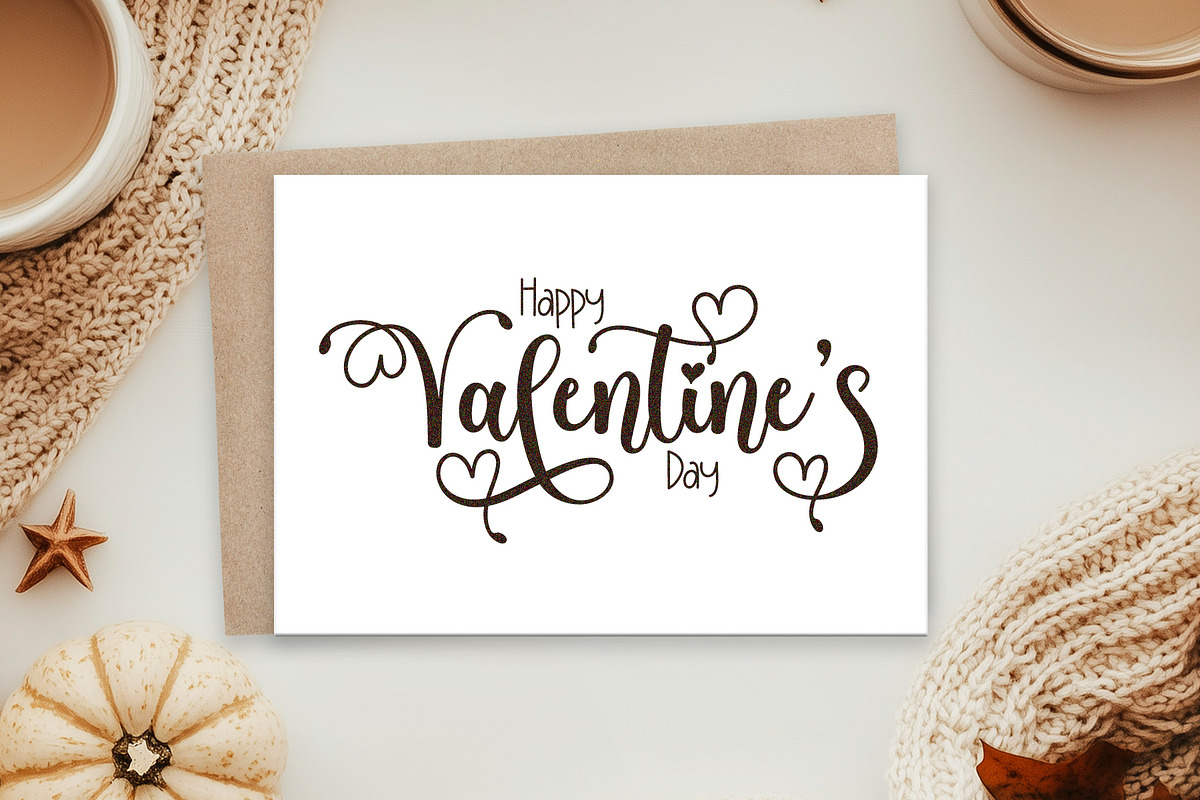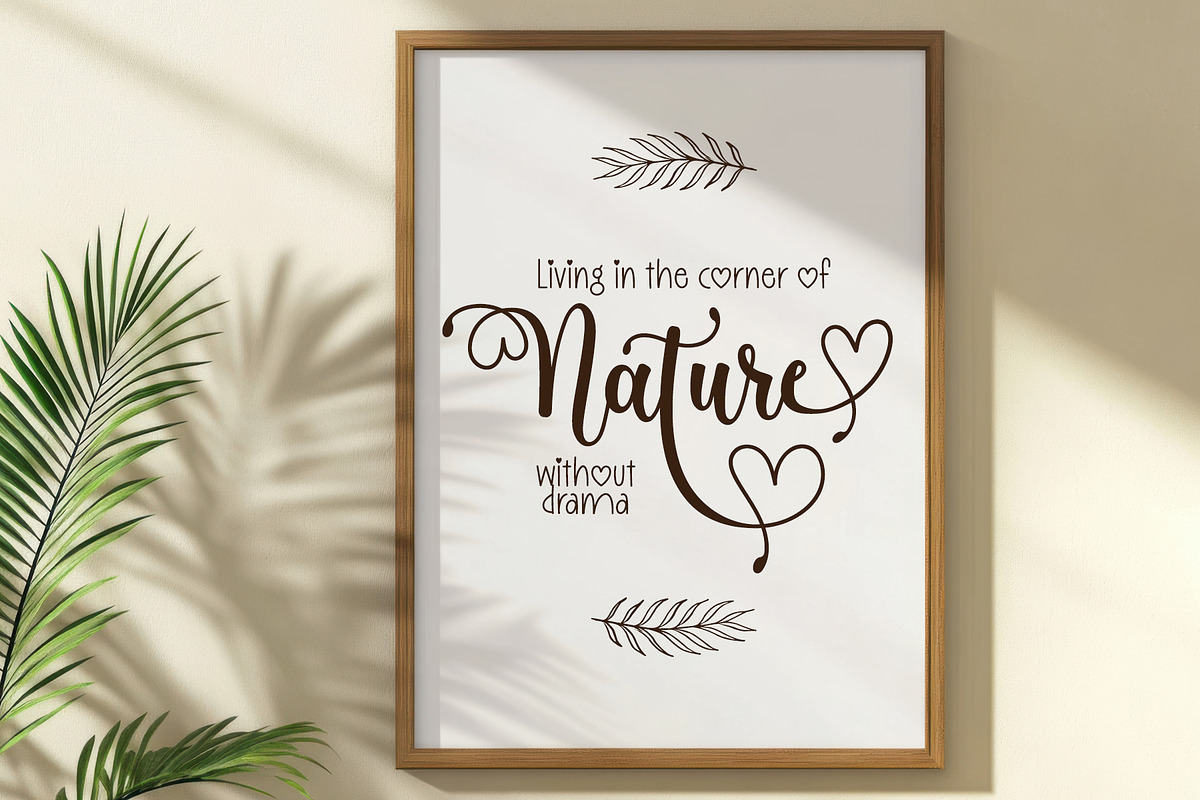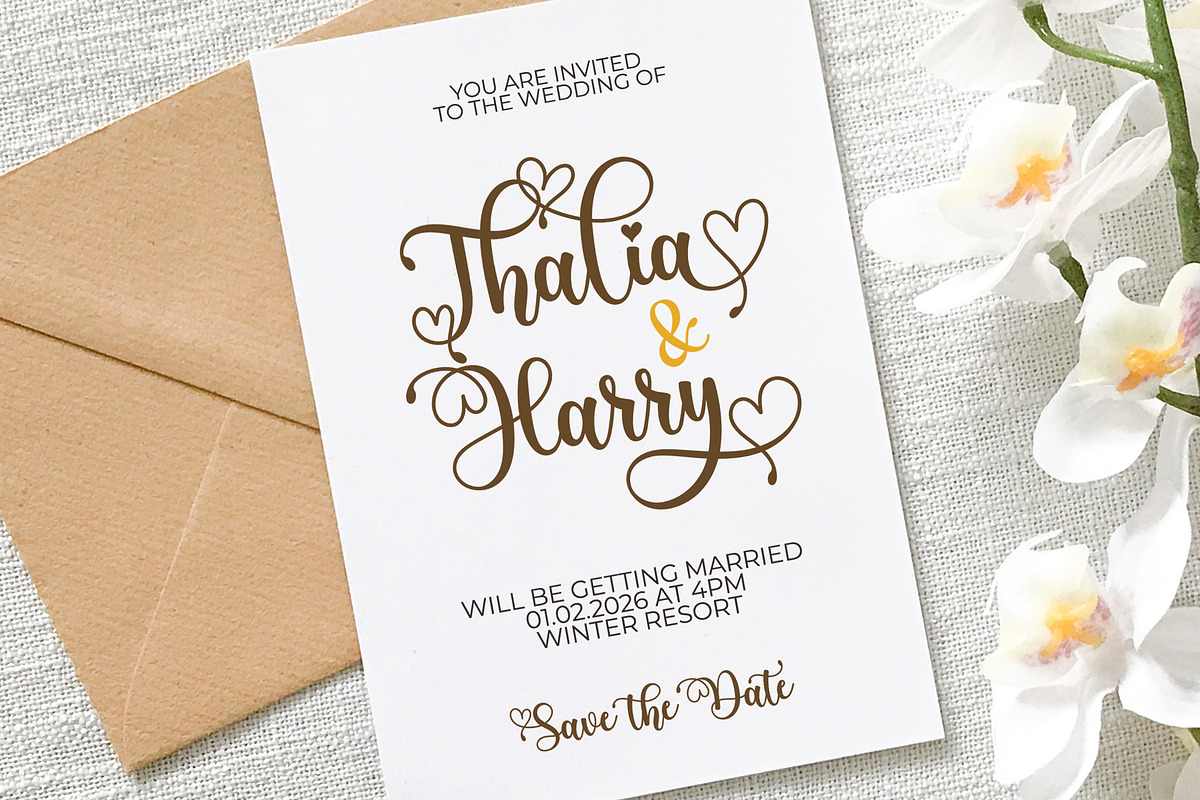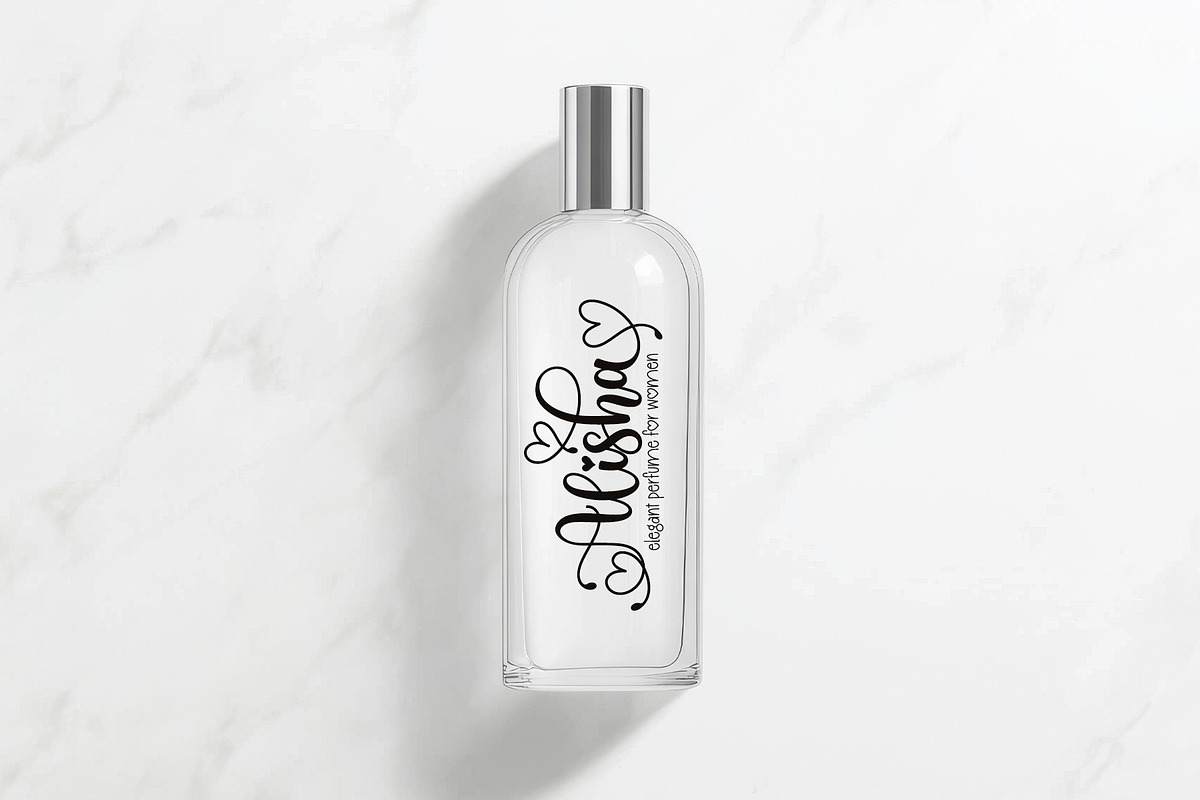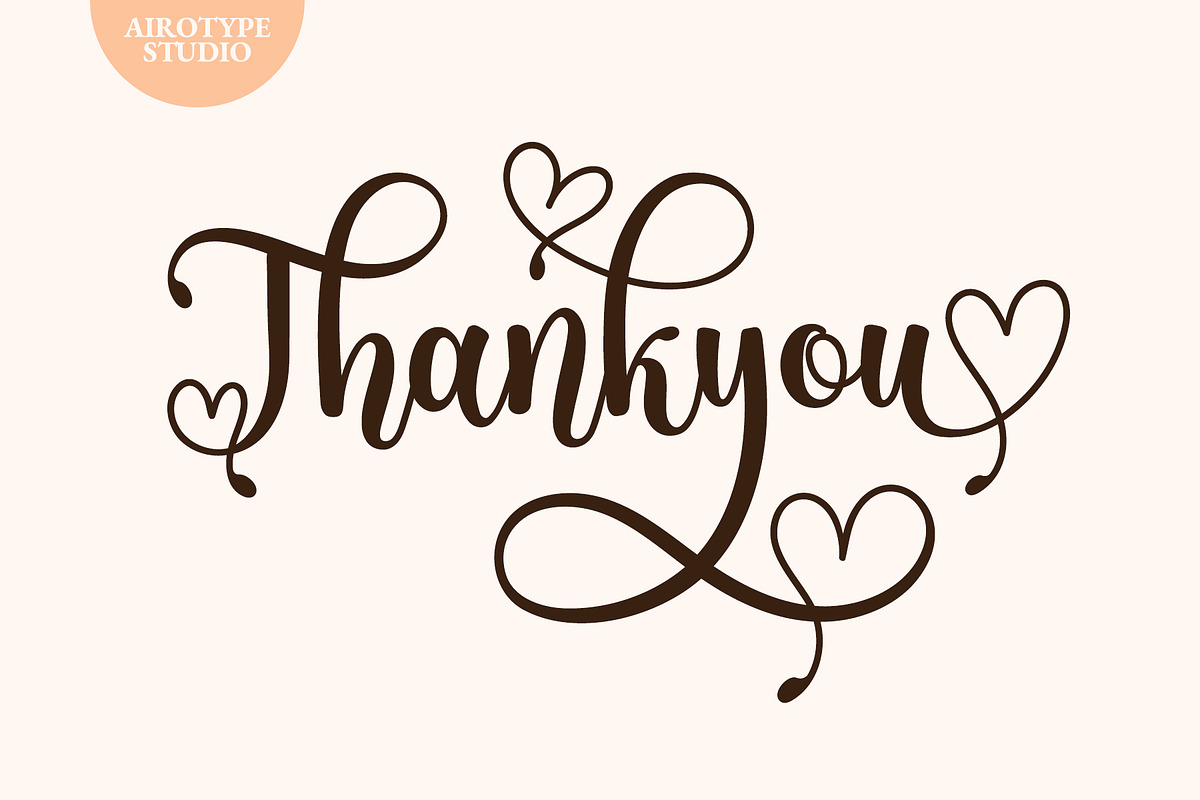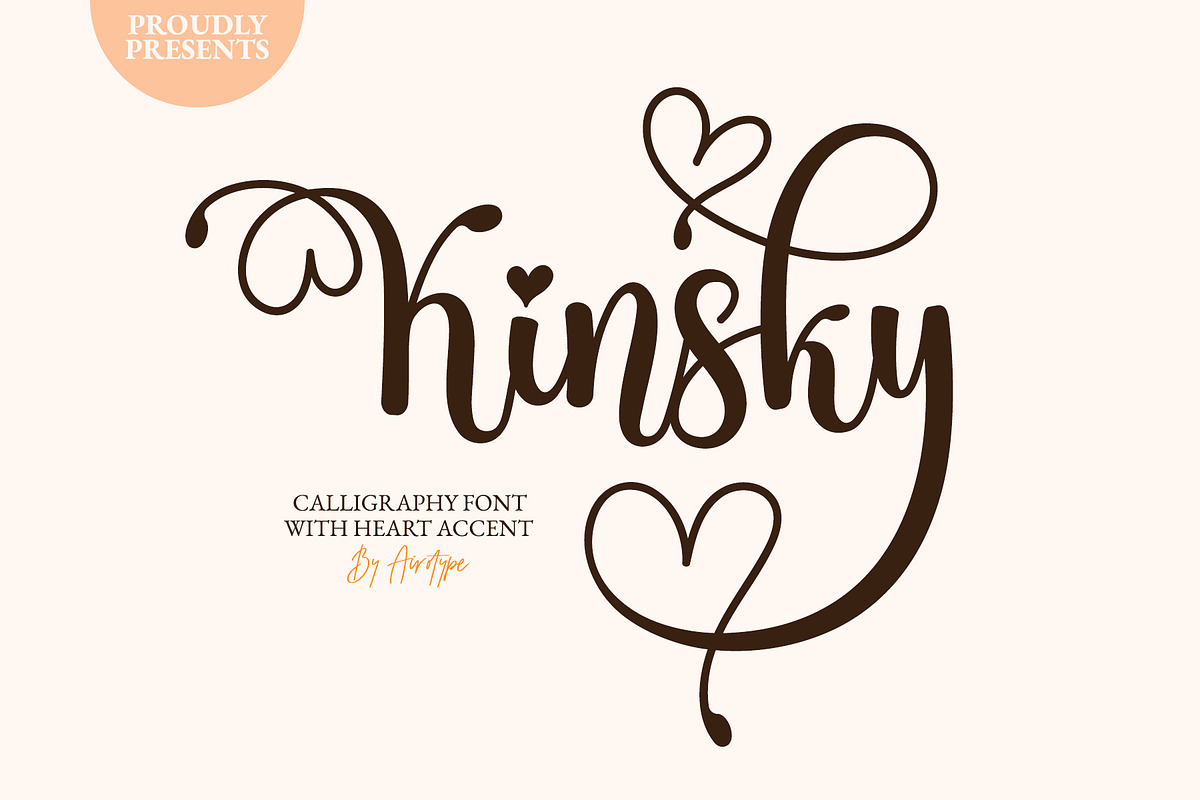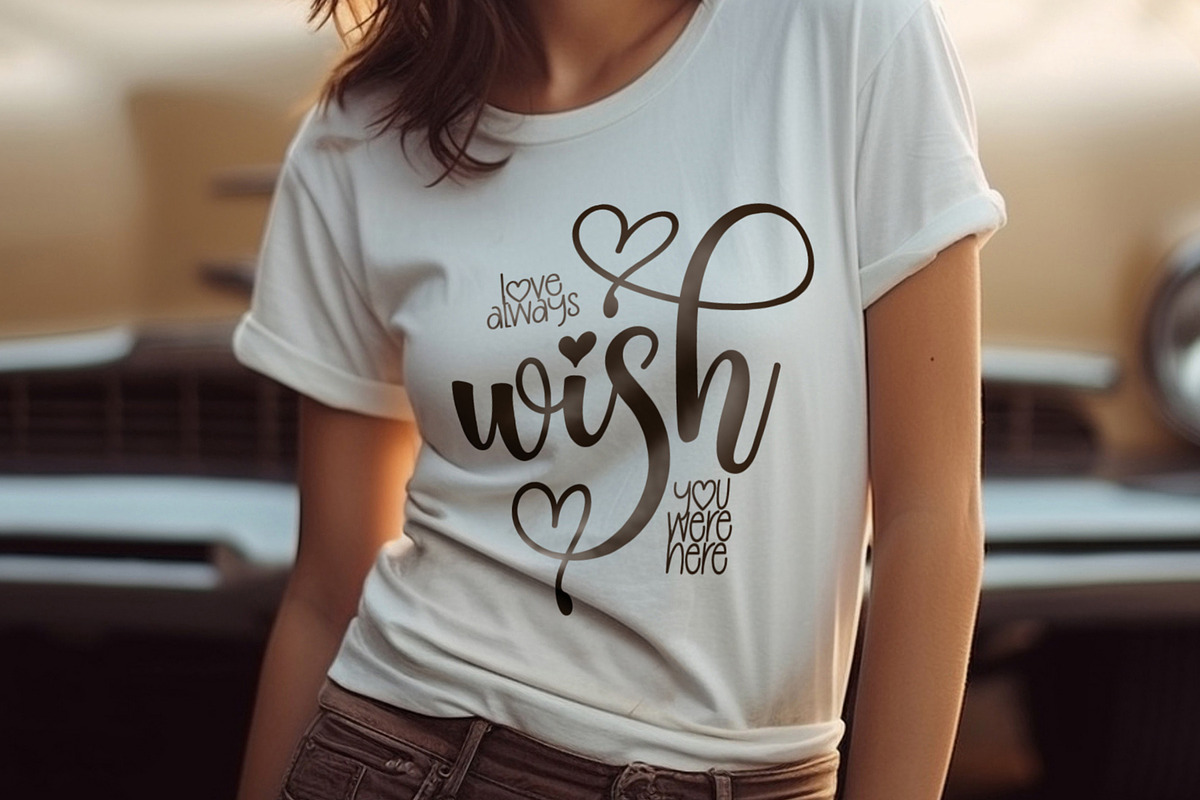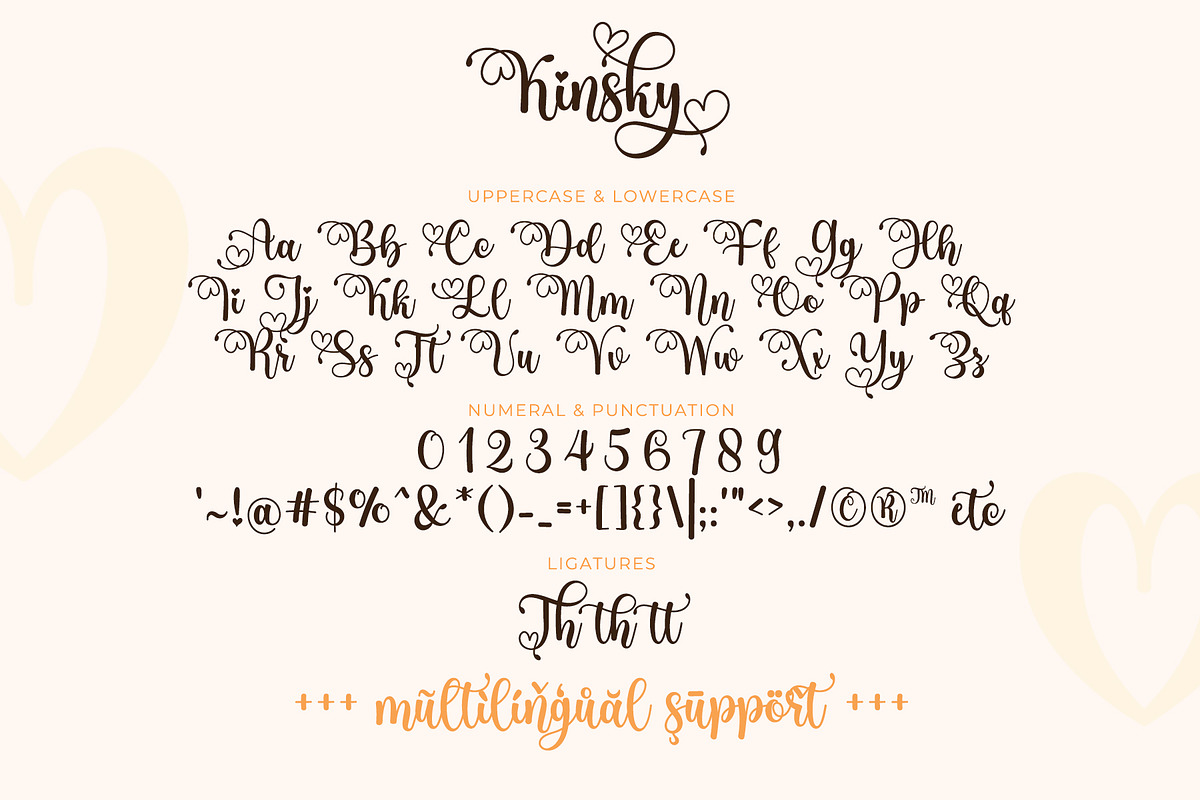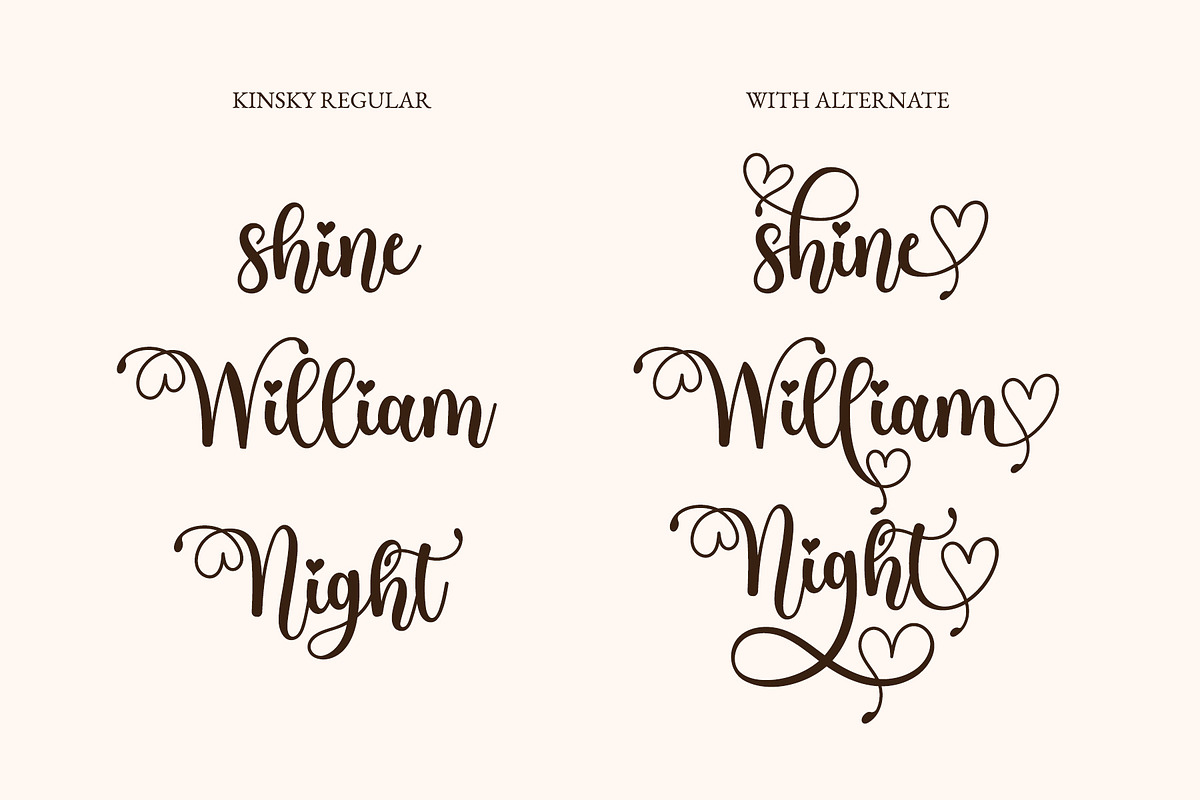
Kinsky - Calligraphy Font with Heart
Kinsky is modern calligraphy font script font. This font is crafted capturing elegance and modernity.
Kinsky has heart accent to give more romantic and lovable touch. It also has extra alternate glyphs or swash that can be accessed with Font Book (Mac) or Character Map UWP (PC). Make sure you know how to access extra glyphs in the program you are using.
This font is beautiful for design that needs simple and elegant touch, such as wedding design, Valentine's Day, birthday, invitation, logo, poster, t-shirt design, crafting, sticker, sublimation, and many more.
- Uppercase & Lowercase (with alternates/extra glyphs)
- Most Multilingual Accent